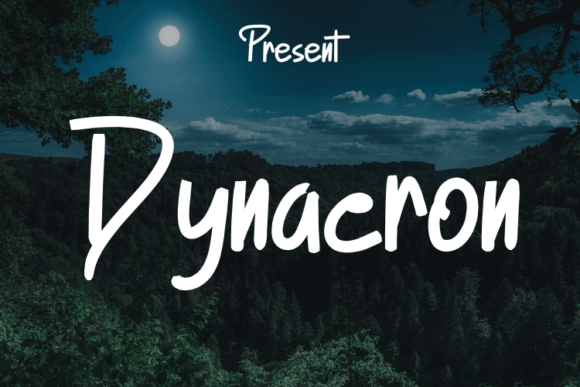
**Introducing Dynacron: The Font of Champions**
Attention, gamers and designers! Prepare to unleash your creativity with Dynacron, the ultimate script typeface for gaming and beyond. Crafted by the visionary Eric Kusuma, Dynacron is not just a font—it's a weapon in your design arsenal.
With its sleek and modern lines, Dynacron effortlessly elevates your creations to new heights. Imagine your game titles blazing with an enigmatic charm, your book covers whispering tales of adventure, and your movie posters captivating audiences with a touch of cinematic allure.
But Dynacron's power extends far beyond the realm of gaming. Its elegant curves and luxurious charm make it the perfect choice for fashion brands seeking to exude sophistication. Magazines and clothing lines will find in Dynacron a font that embodies both style and substance. Even your everyday quotes and social media posts will shimmer with a touch of understated elegance.
But don't just take our word for it. Step into the world of Dynacron and experience its transformative power firsthand. Let your imagination soar as you create designs that leave a lasting impression. Join the ranks of designers who dare to stand out with Dynacron, the font of champions.